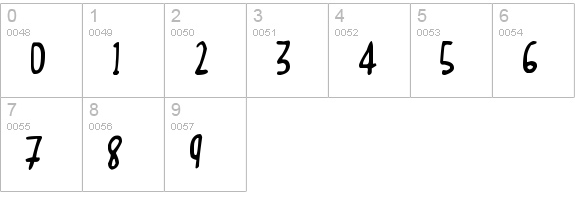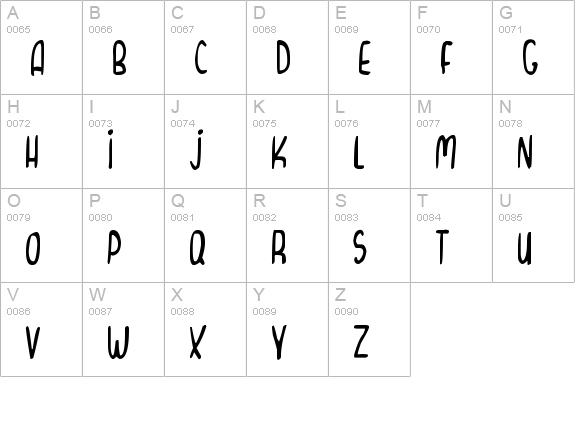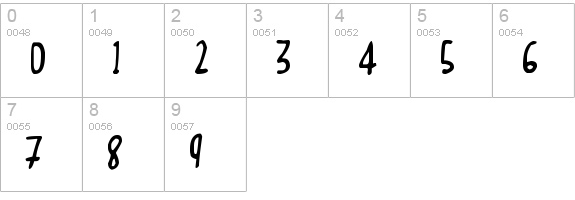
Curvy Thins Font Details
Curvy Thins is a free for personal use font in the Fancy > Comic category, designed by Darrell Flood. It has been downloaded 46 times and is available for Windows, Mac and Linux.
Curvy Thins font is a whimsical and elegant typeface that exudes charm and playfulness. Its curvy lines and delicate thins create a unique and stylish look perfect for a variety of design projects. This font is ideal for adding a touch of sophistication to invitations, greeting cards, logos, and more.